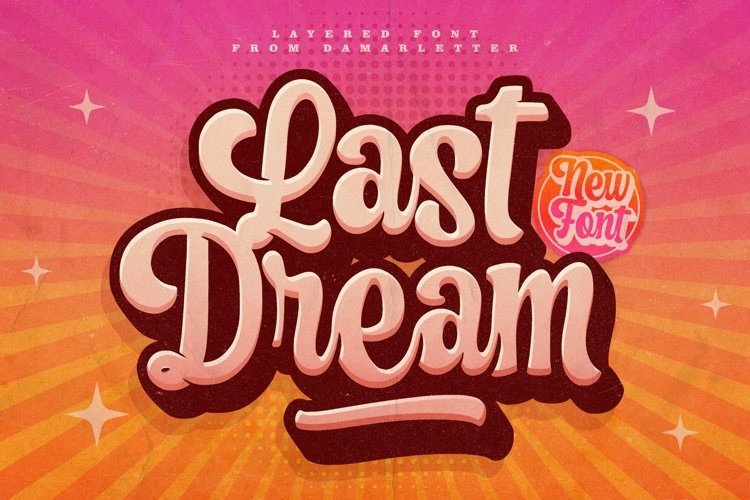
Last Dream Font
Last Dream Script Font inspired by Vintage & Retro Script, suitable for designs that need a touch of classic and old. Last Dream is consisting of a stylish layered font, come with regular and extrude. This font was created with contextual alternates opentype features to create slice effect.
Last Dream Script Font is perfect for branding projects, logo, social media posts, advertisements, product packaging, product designs, label, stationery and anything that you want.